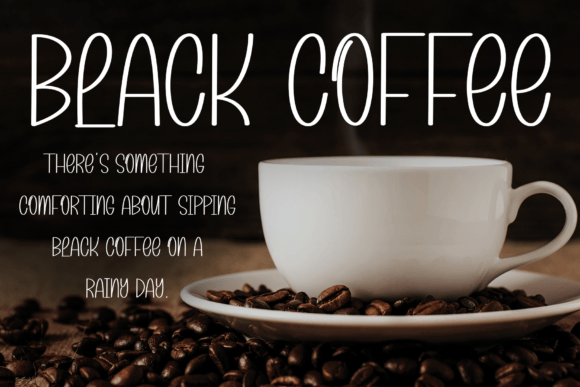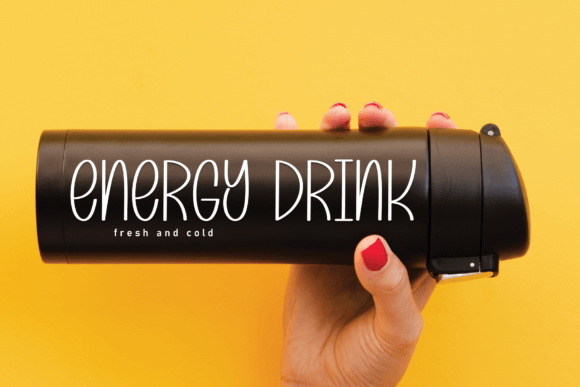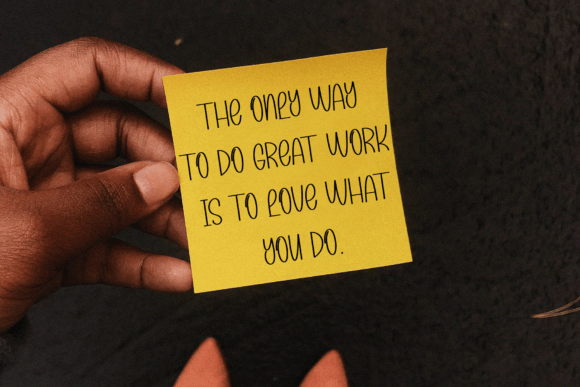
Introduction to Saturday Night Font
Saturday Night is a stylish and delicate script font.
It has a clean, thin and smooth vibe and it will be a hit for any design that you want to add it to .
Key Features of Saturday Night Font
Why Choose Saturday Night Font?
Saturday Night Font offers exceptional quality and versatility, making it a valuable addition to your design toolkit. Whether you’re creating for personal projects or commercial use, Saturday Night Font delivers professional results.